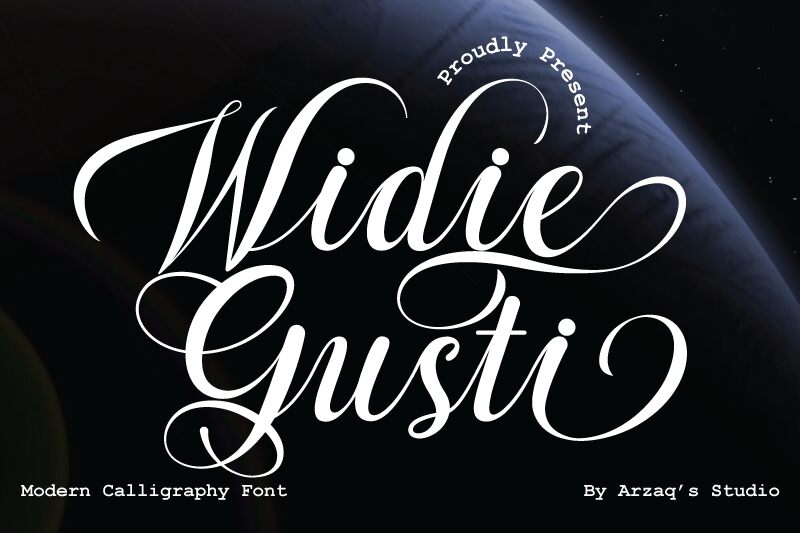
Widie Gusti
Widie Gusti font is a calligraphy typeface designed by Miftah Arzaq. This free calligraphy font showcases elegance and grace, exuding sophistication with its flowing and expressive forms. Encapsulating ornamental flair, it offers an ideal balance between contemporary innovation and classical beauty.
Use it for eye-catching logo designs, professional business cards, premium labels on bottles or packaging, posters of all sorts including movies or events. Featured magazine content (titles especially), blog titles, mobile applications icons with added creative appeal effortlessly at hand as well!